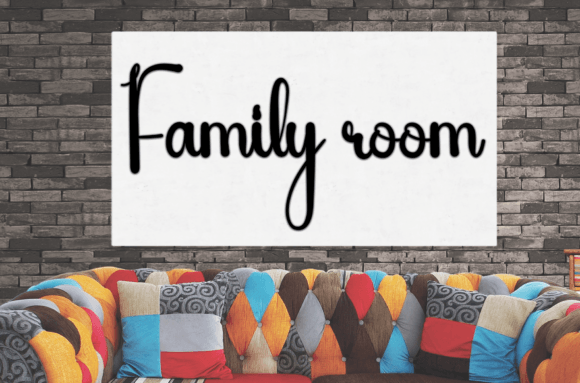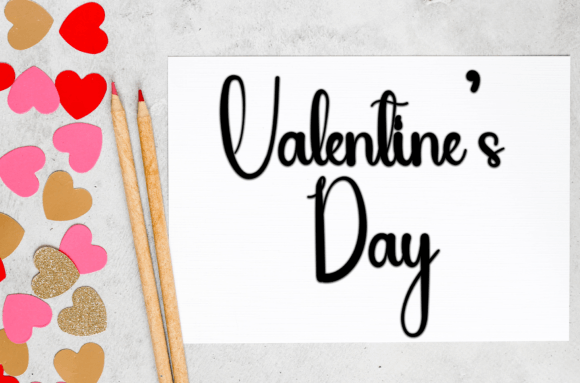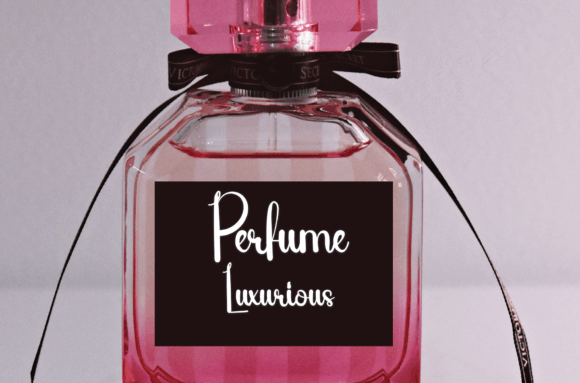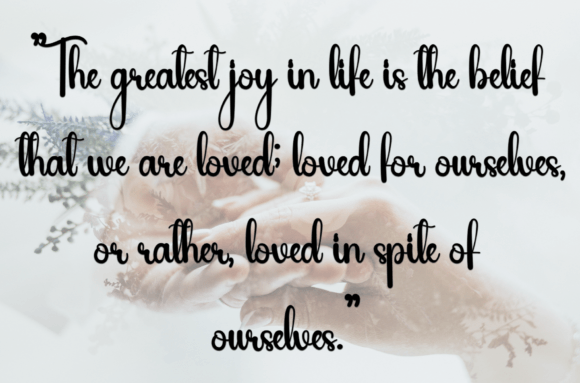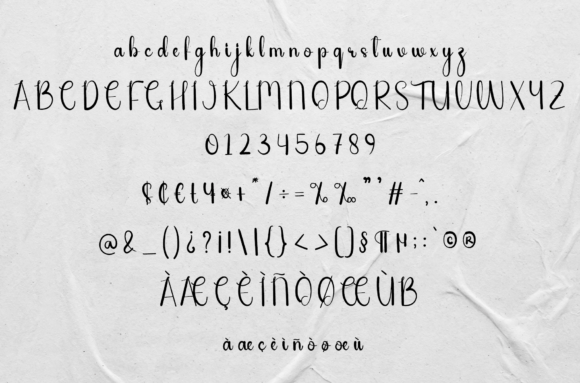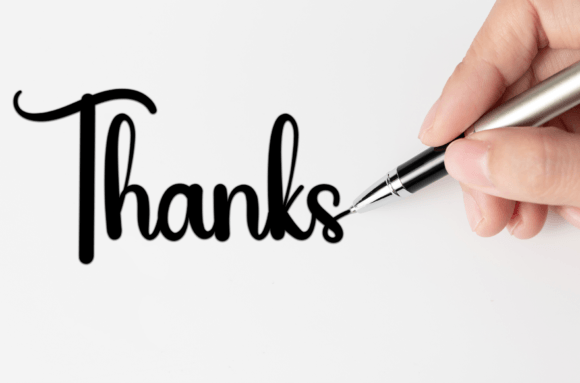
I’ll never forget the time I was working on a last-minute greeting card project for a friend’s birthday. I had all the design elements ready, but I was stuck on finding the perfect font. It had to be friendly, yet elegant; simple, yet impactful. That’s when I stumbled upon Black Out, a beautiful handwritten font that instantly resonated with me. In this article, I’ll share my love for Black Out, its features, and how to make the most of it in your creative projects.
An Honest Review of Black Out Font
What I Love About Black Out ✨
- Simple and friendly aesthetic ✅
- Perfect for a variety of creative projects, from crafts to digital design 📚
- Elegant yet approachable, making it suitable for various audiences 👥
- Supports OpenType features, glyphs, and stylistic alternates for added versatility 🎨
- May not be ideal for very formal or corporate projects due to its casual nature ⚠️
- Limited availability of variable font styles, which might restrict design flexibility 📊
The Story Behind Black Out Font
Black Out was designed with the intention of creating a simple, friendly font for everyday creative projects. The designer aimed to craft a font that would be both elegant and approachable, making it perfect for a wide range of applications. Although the designer’s story might be fictional, the font’s impact on the design community is real.
Q: What type of projects is Black Out suitable for?
A: Black Out is perfect for crafts, digital design, presentations, greeting cards, and more.
Q: Does Black Out support OpenType features?
A: Yes, Black Out supports OpenType features, glyphs, and stylistic alternates, making it a versatile font for creative projects.